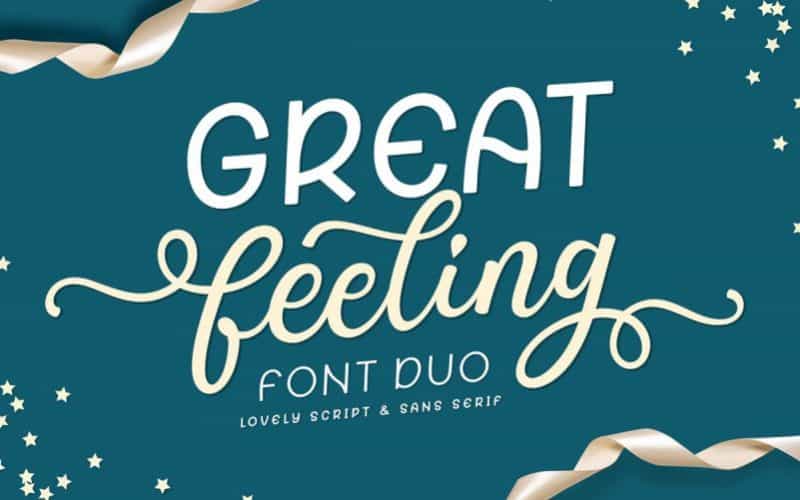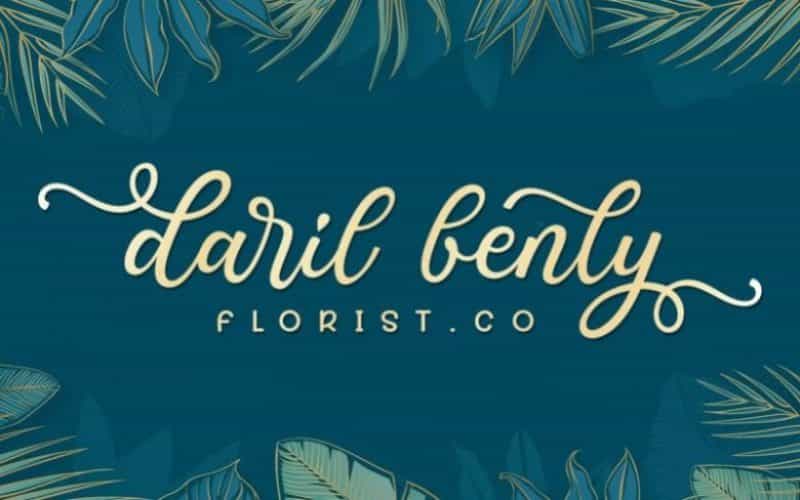
Discover Great Feeling Script Font, part of the Commercial Calligraphy collection—a versatile and unique font perfect for adding a personal touch to your projects. Download it for free and enjoy crafting designs with style, from invitations to social media posts. This font is available exclusively for personal use, giving you the freedom to create without limits. Unlock your creativity with Great Feeling Script Font today!
This is our latest product which we call “Great Feeling Duo“. ’ This is a font duo which includes the lovely script fonts and the fancy sans serif, it can be used together. The Great Feeling generates a Wonderful Sensation with its script that has many alternates and ligatures, and the Sans typeface also comes in fancy styles.